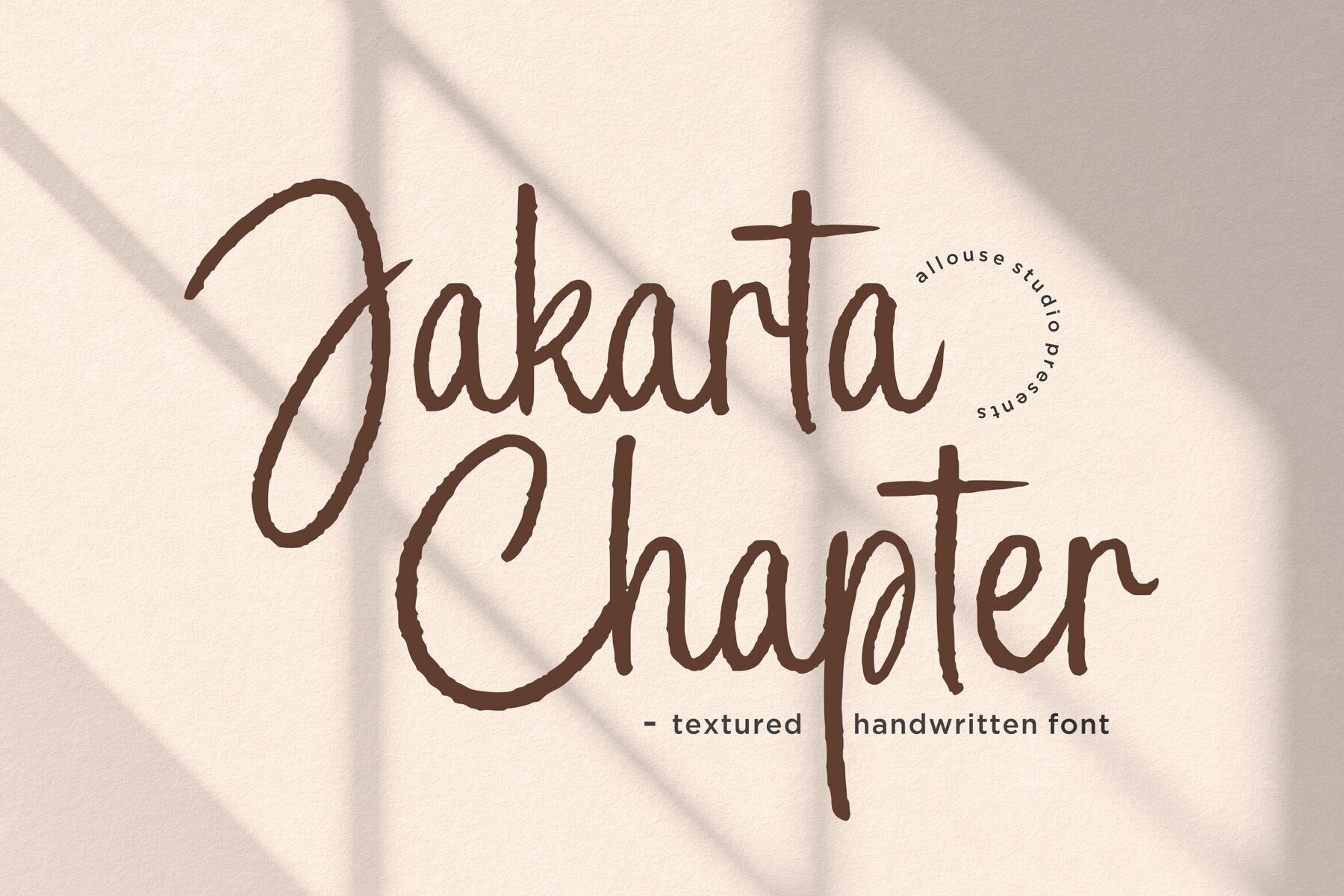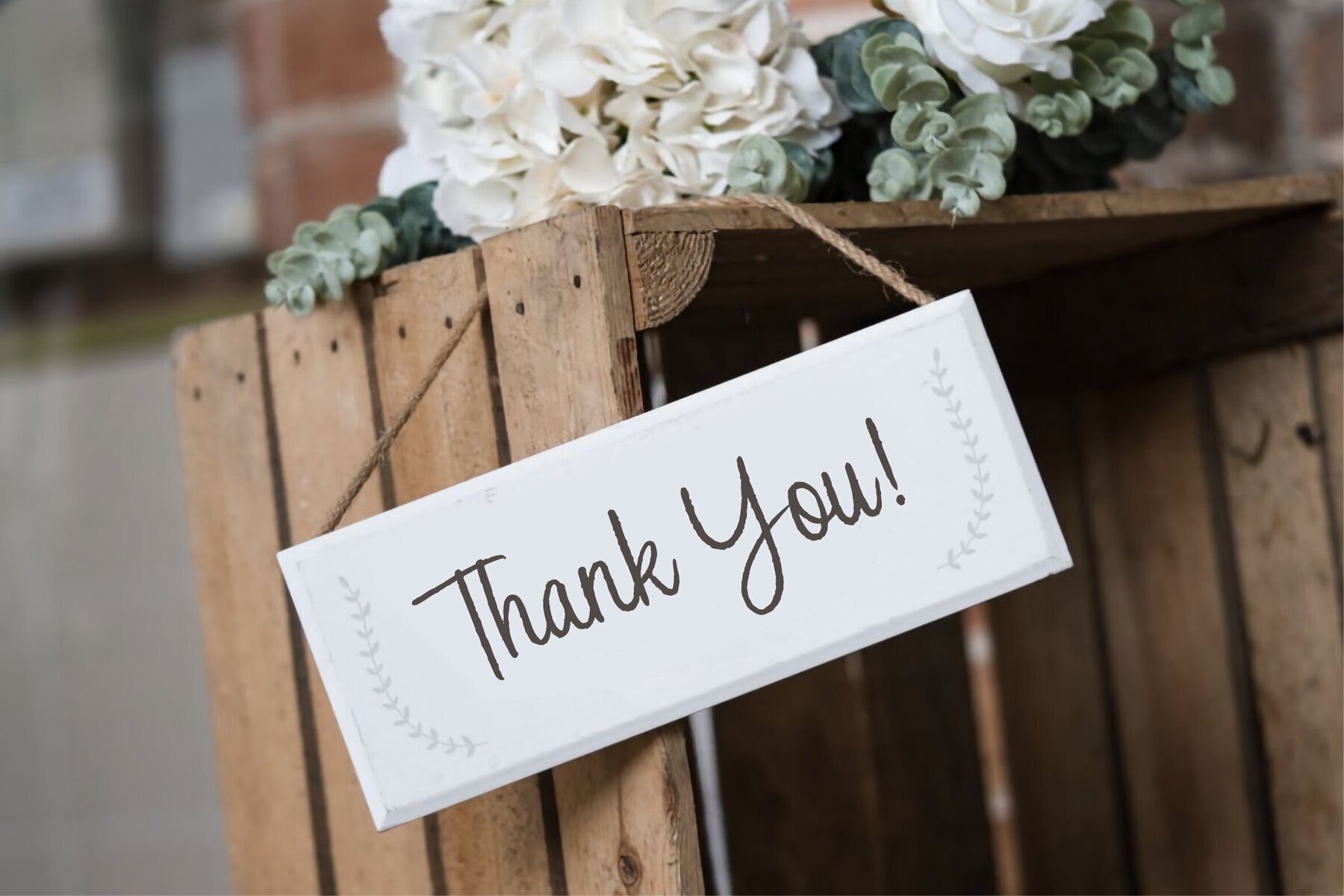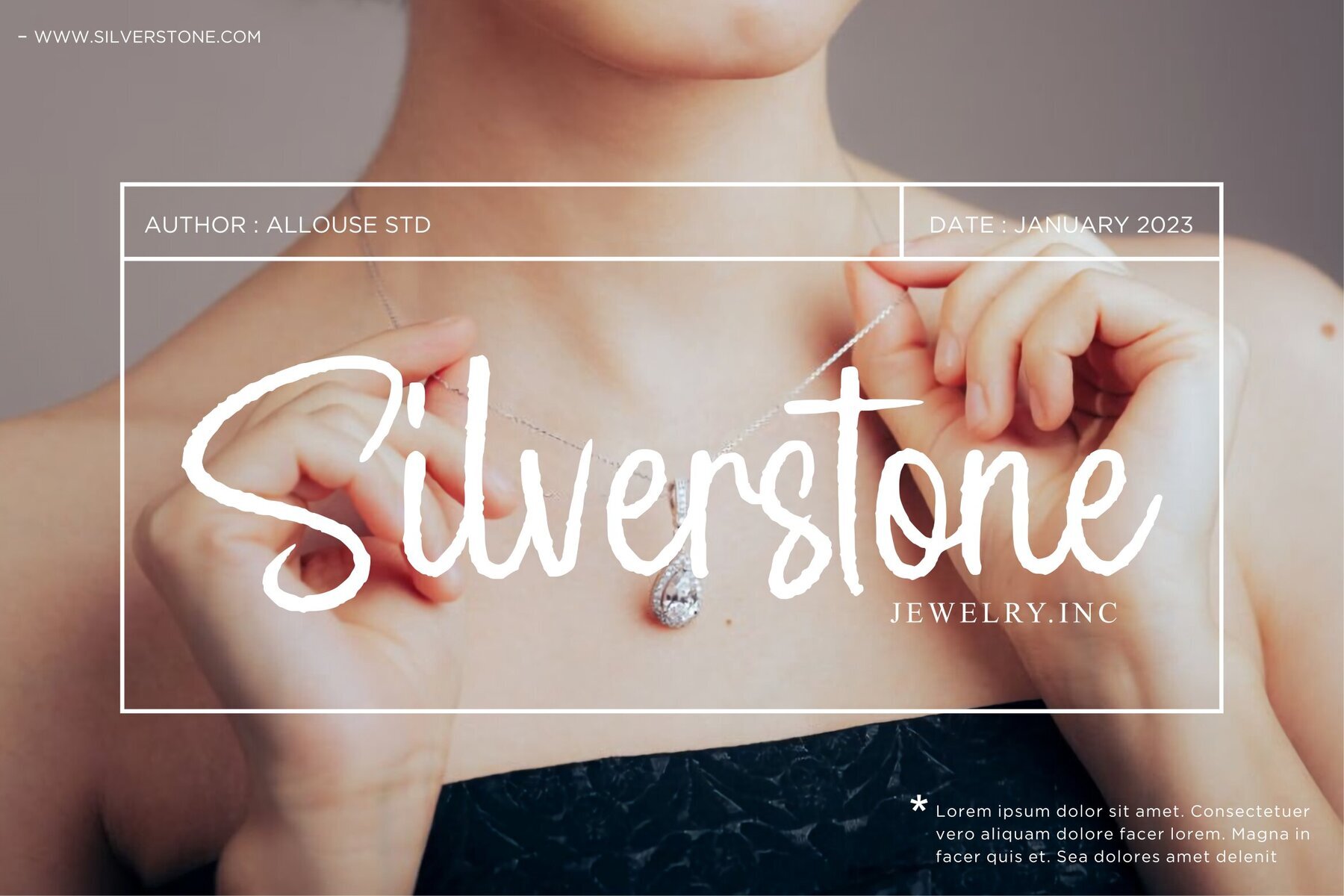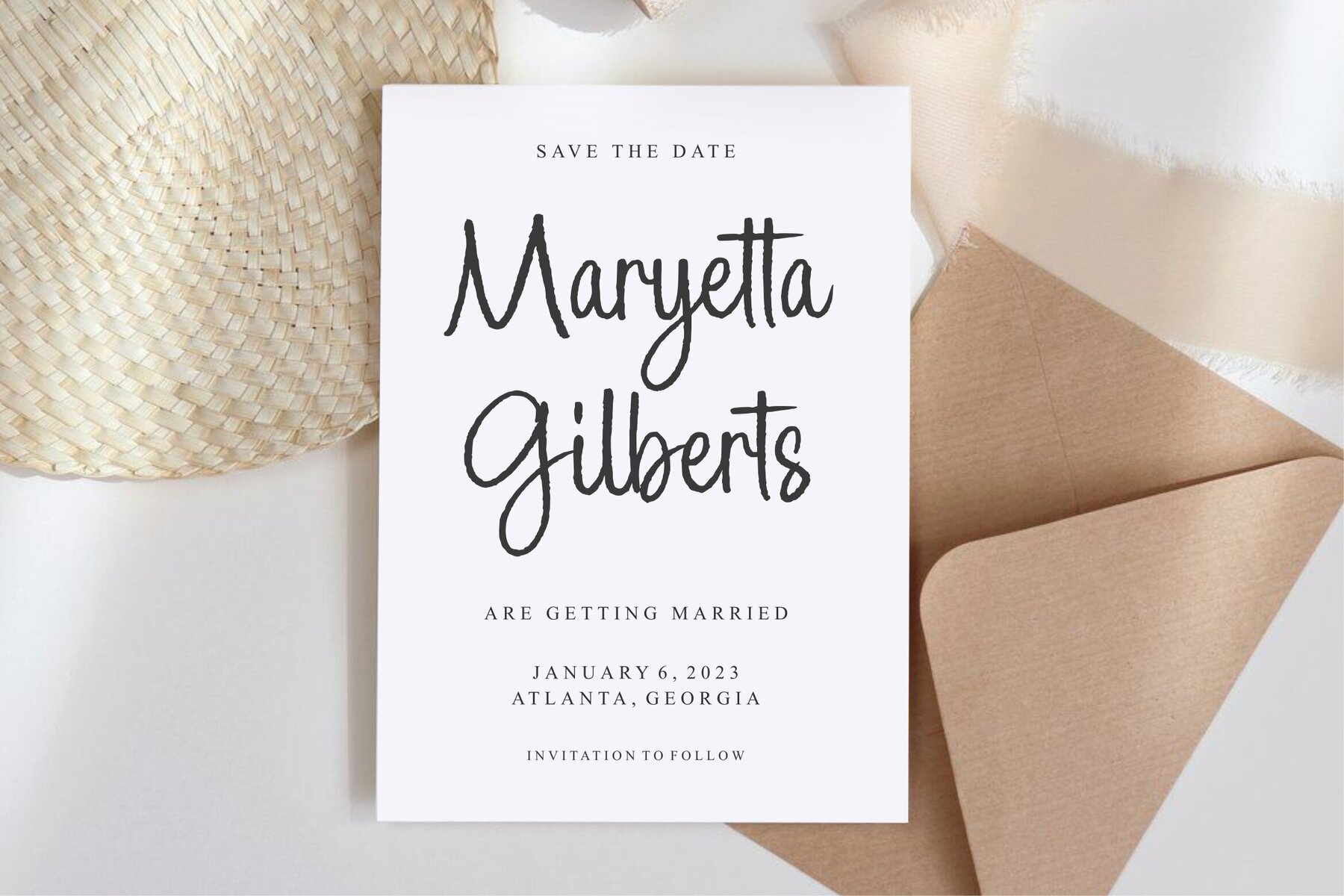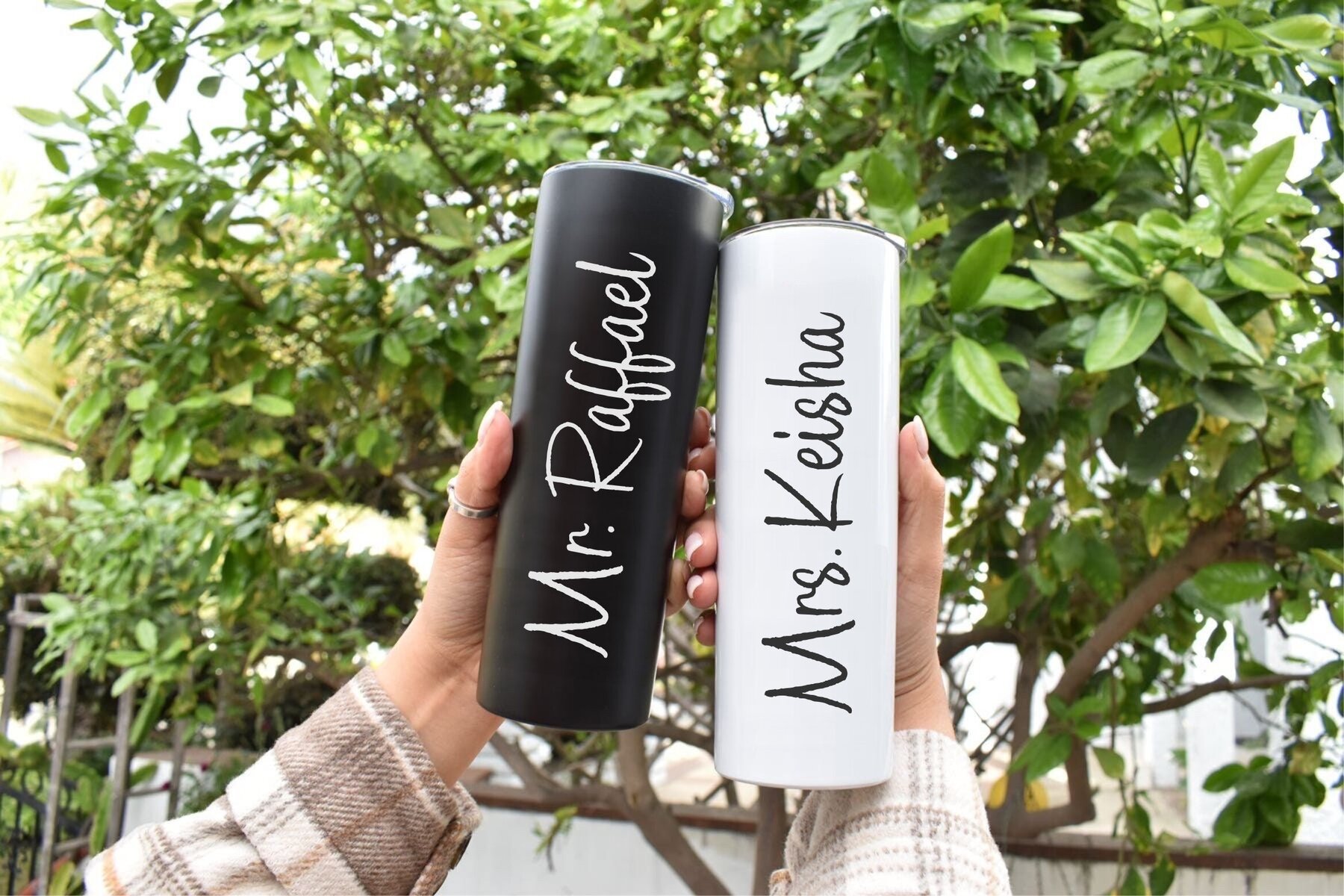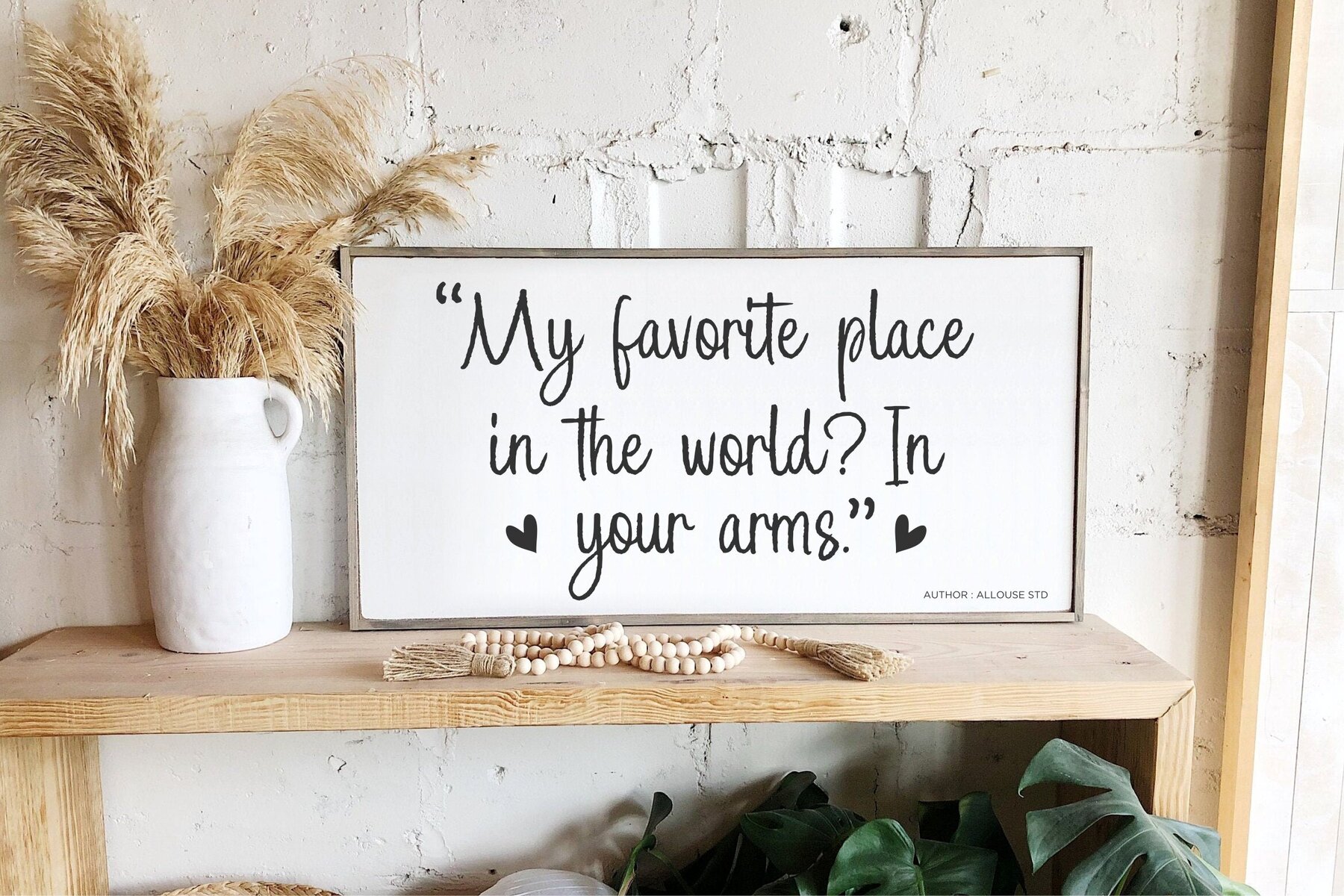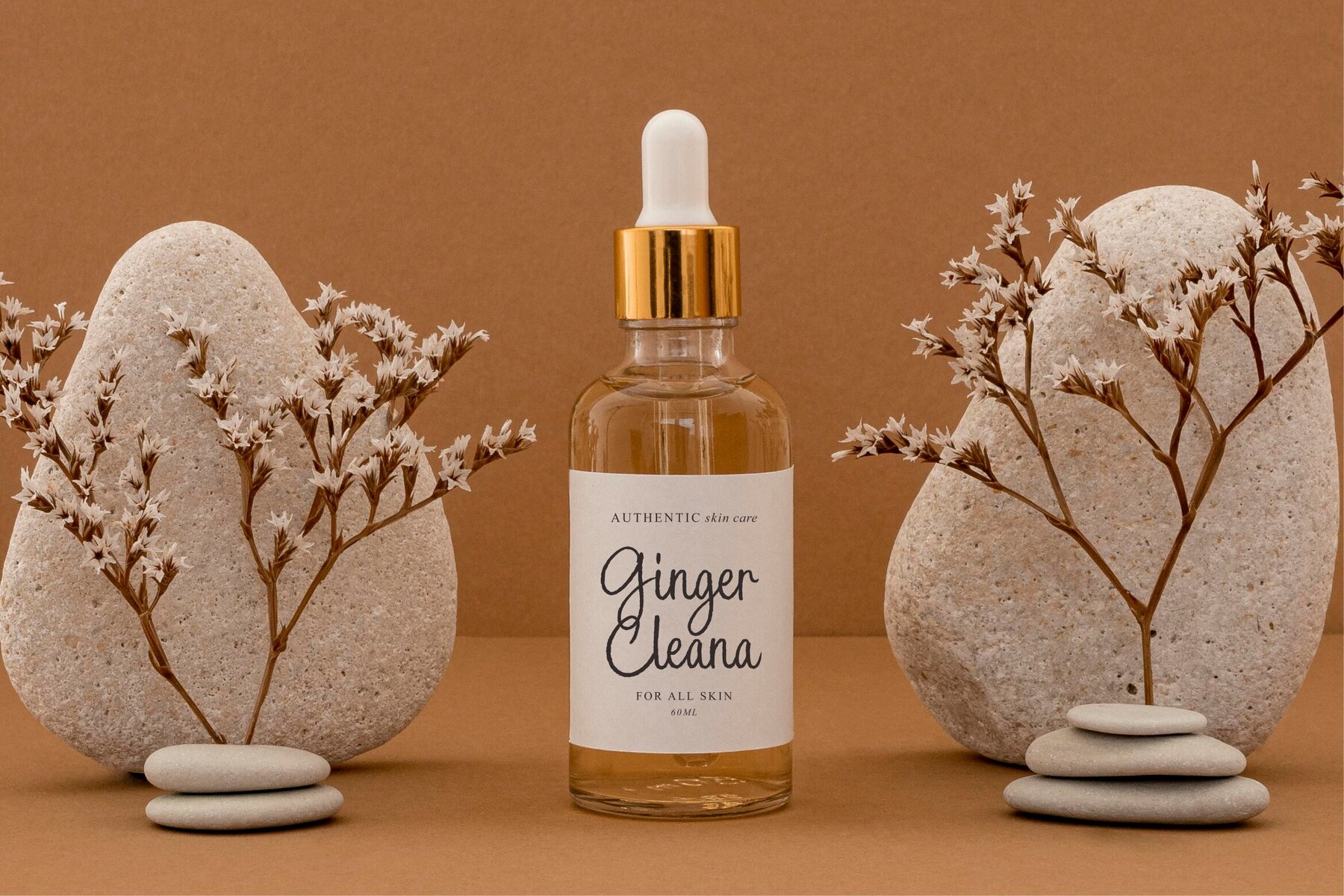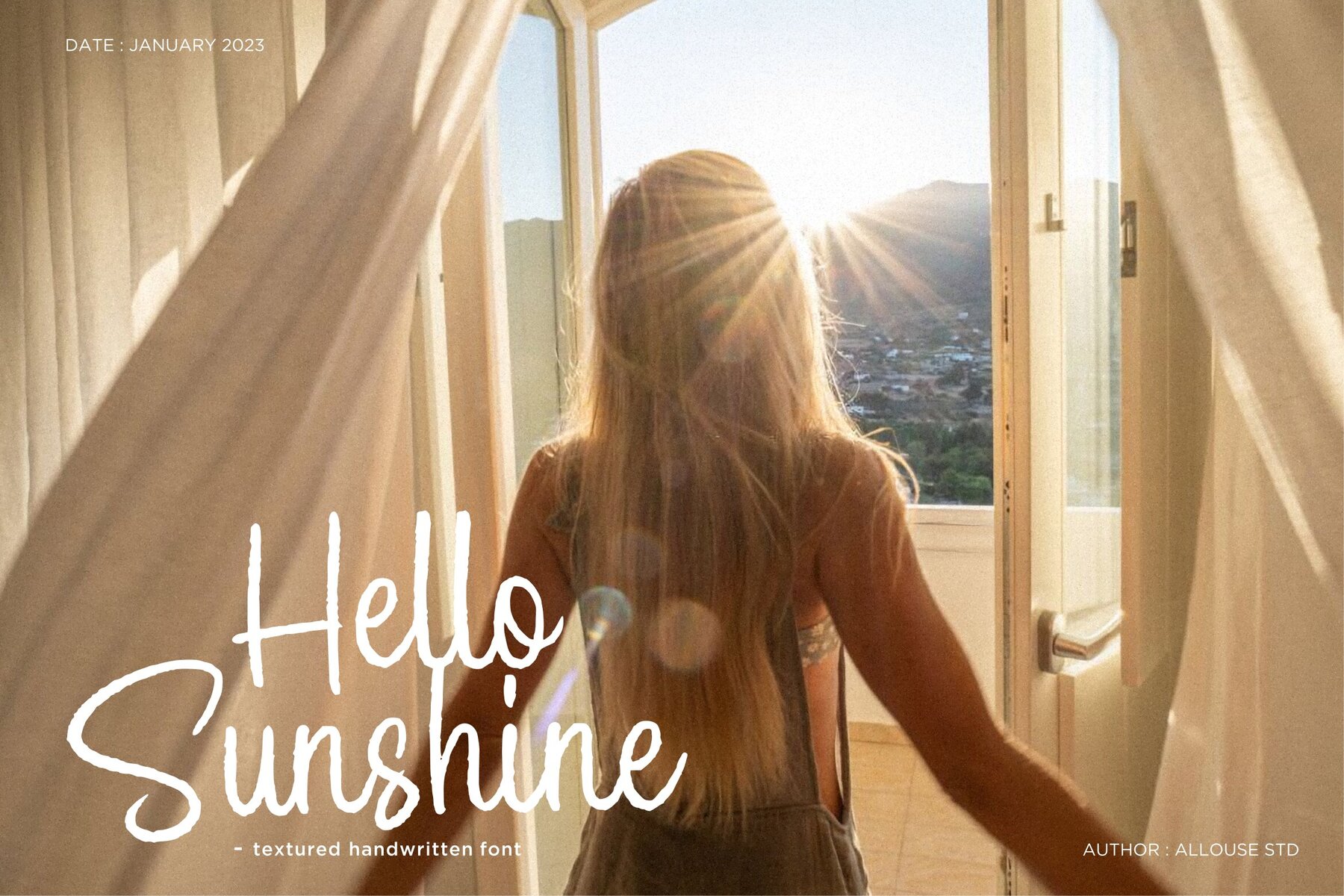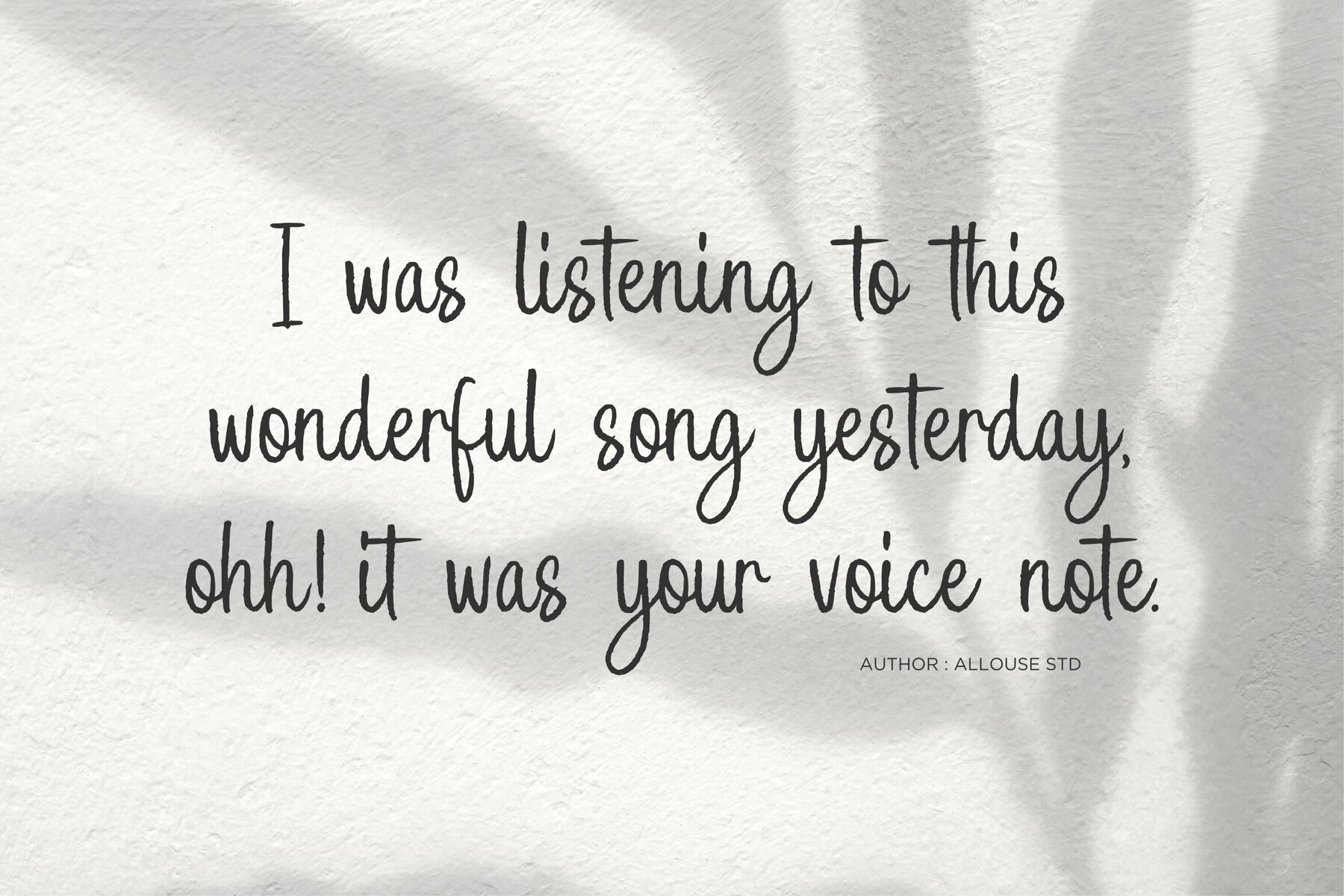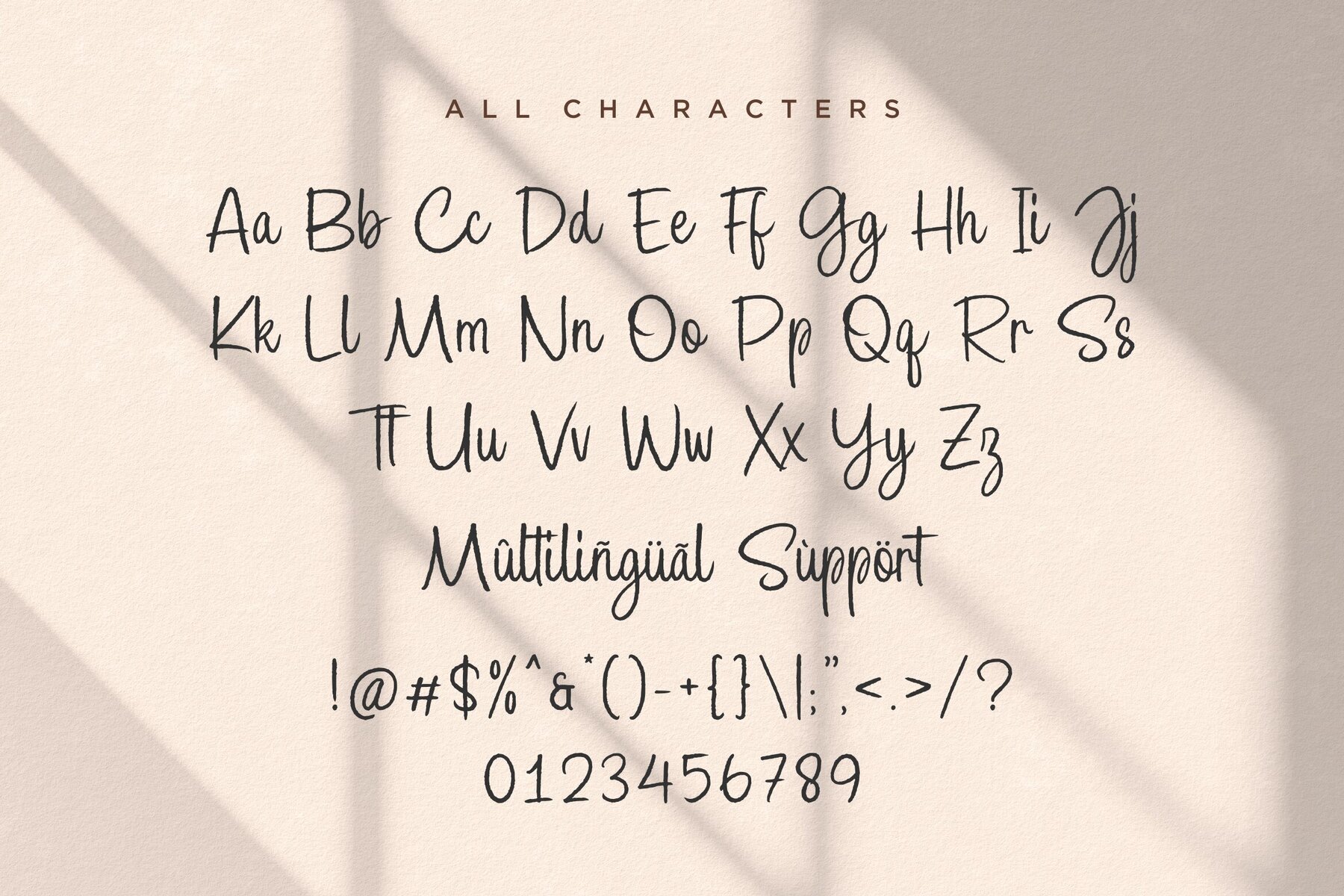
Journey deeper into the beautifully intricate world of design with the "Jakarta Chapter". A beautifully textured, handwritten font unveiled by the refined artistic minds at Allouse.Studio. This premium font breathes life and elegance into your design and marketing projects while creating a fusion of contemporary aesthetics and the classic handwritten appeal. The Jakarta Chapter Font is more than just an assembly of letters; it's a refined tool for impactful storytelling. This one-of-a-kind font is the perfect choice for enhancing product packaging, adding a personal touch to branding projects and integrating an artistic aesthetic to magazines. And for those hoping to project words that hover with intrigue above a backdrop on social media or ignite a romantic spark in a wedding invitation, Jakarta Chapter executes it brilliantly. The Jakarta Chapter Font package includes: - A visually appealing textured handwritten font, - Comprehensive support and updates, - An easy-to-download format compatible with most graphic design software. Your design and marketing narratives deserve a voice that narrates the story with elegance and panache. And that's what you get with Jakarta Chapter; not only a font, but a grand act of artistic expression. Step into an artistic revolution with Jakarta Chapter by Allouse.Studio.Experience a Grand Typography Revival with Jakarta Chapter by Allouse.Studio